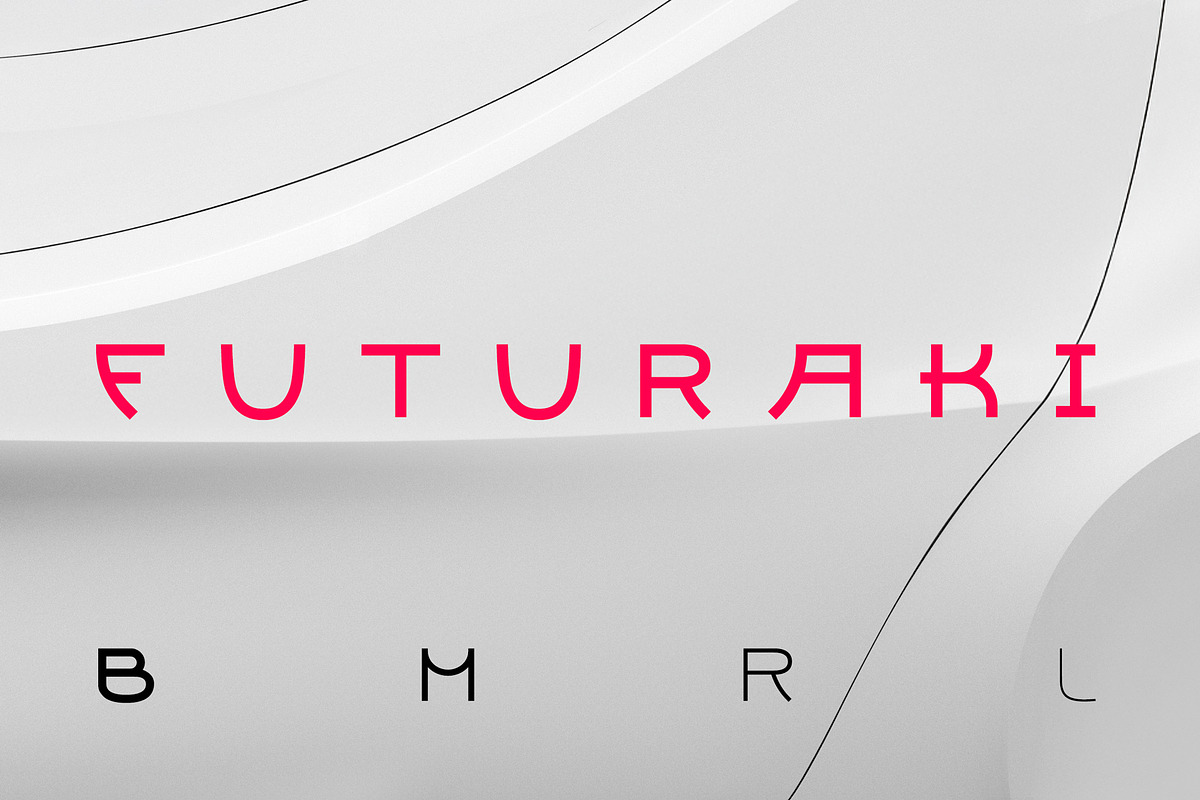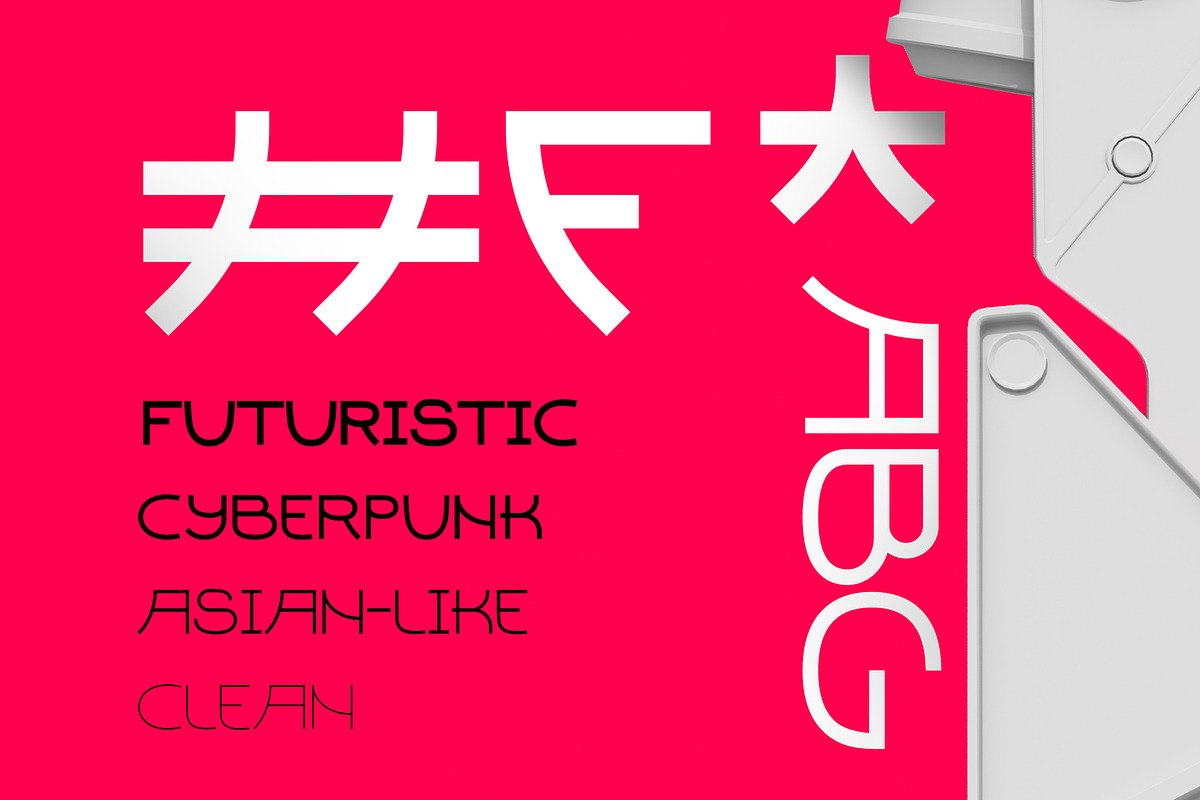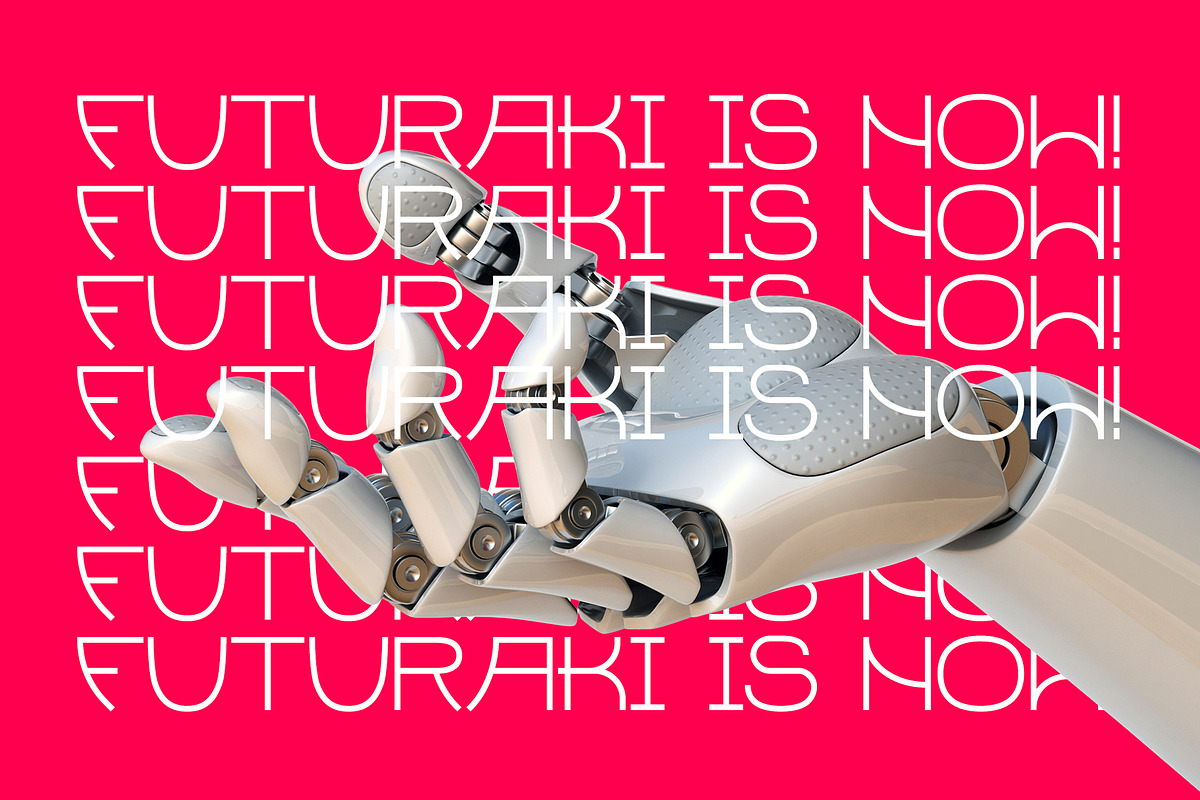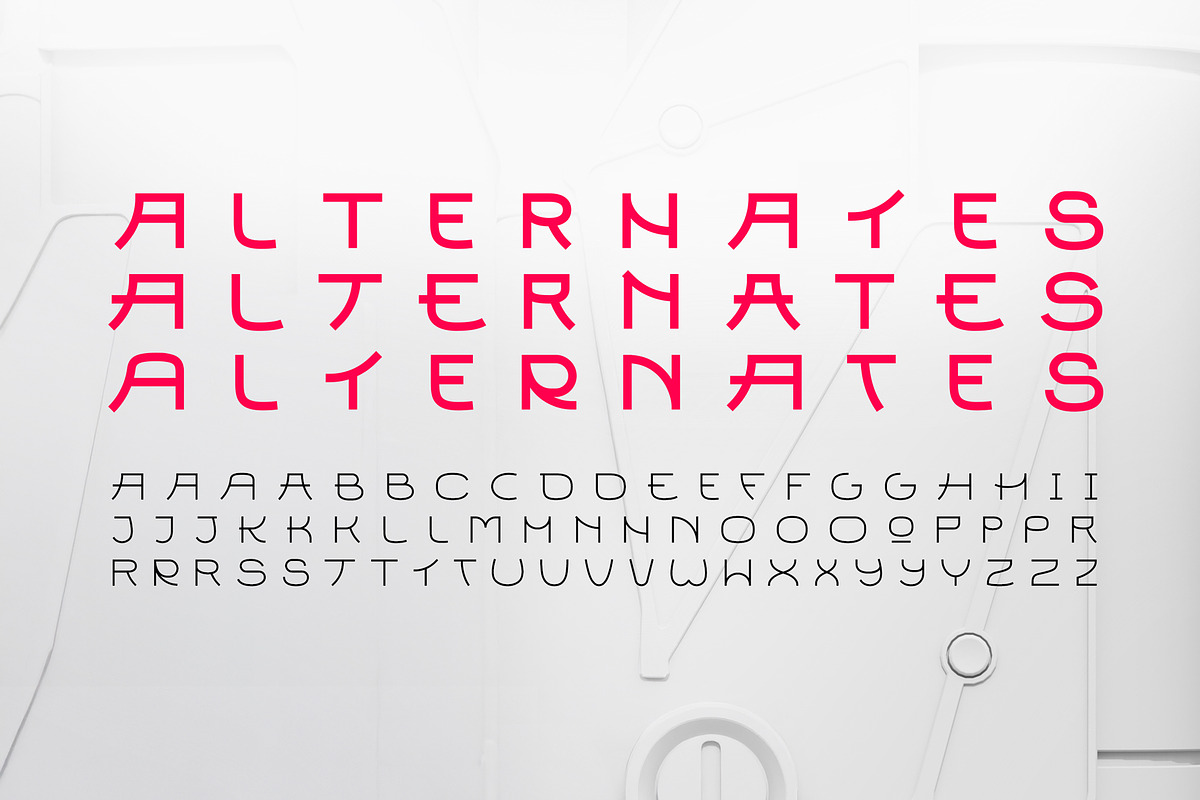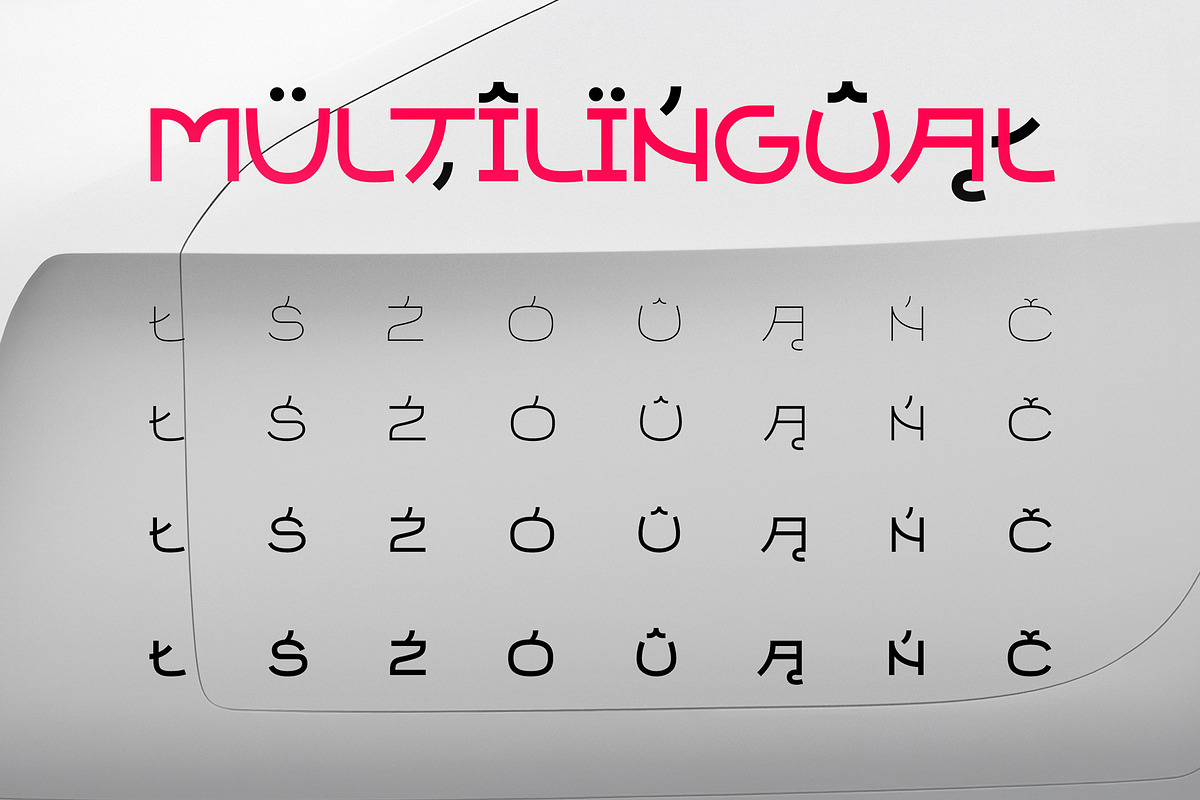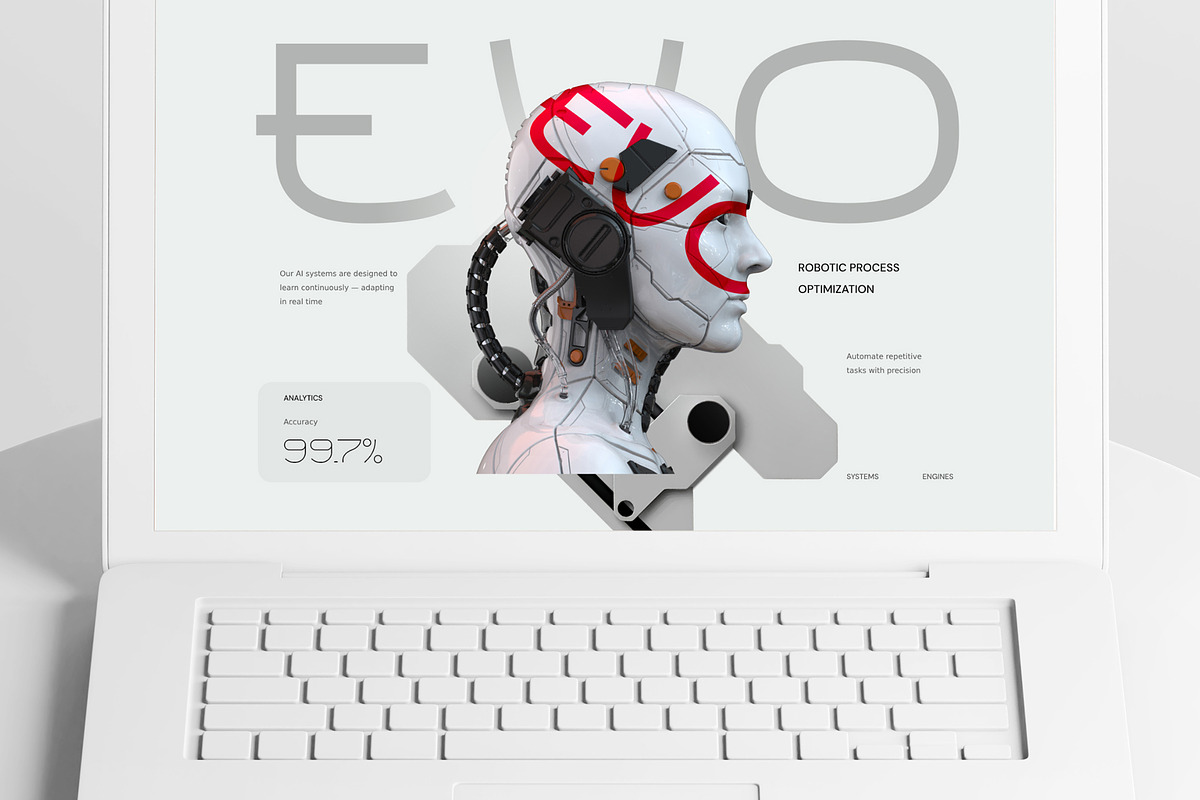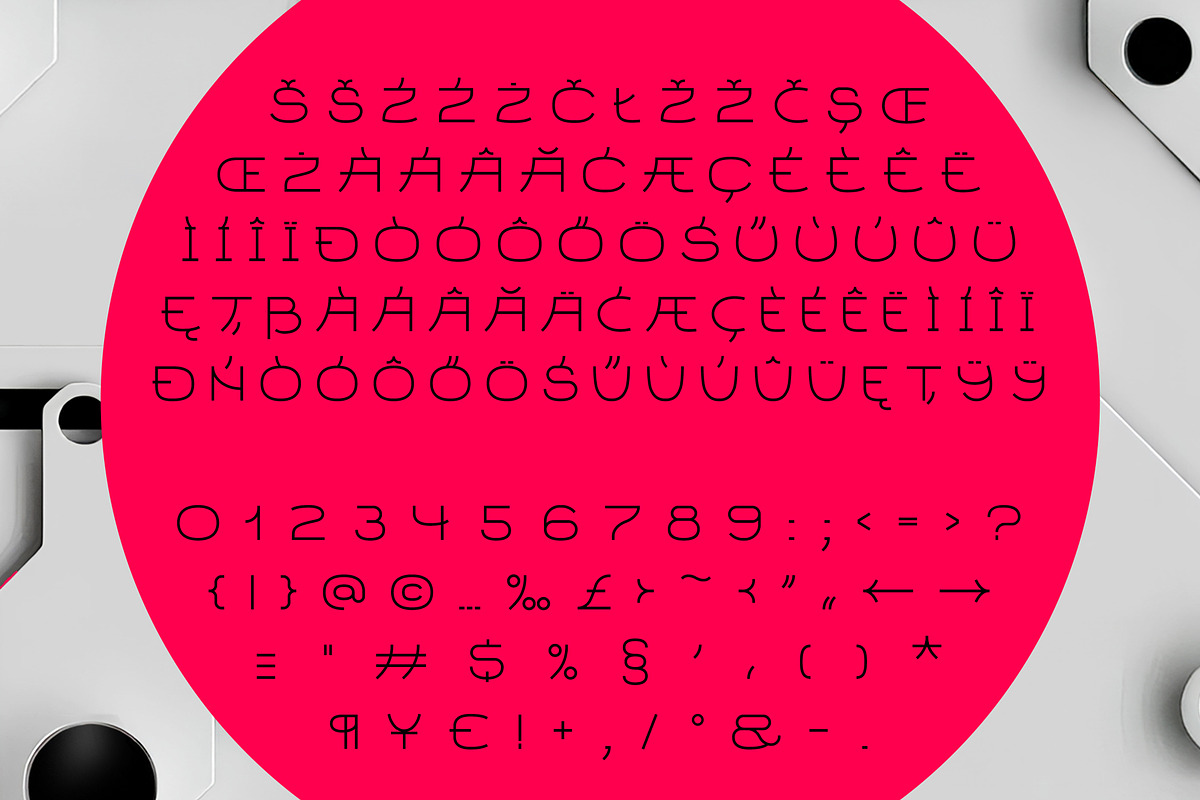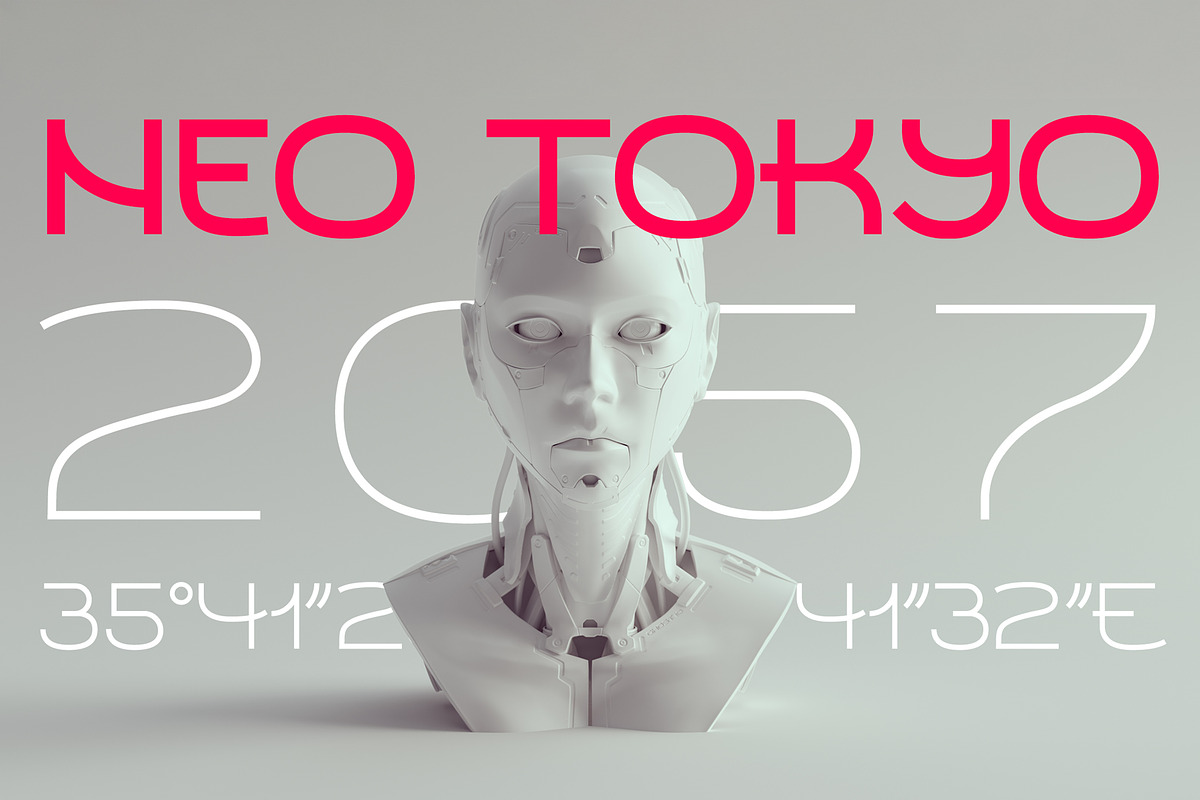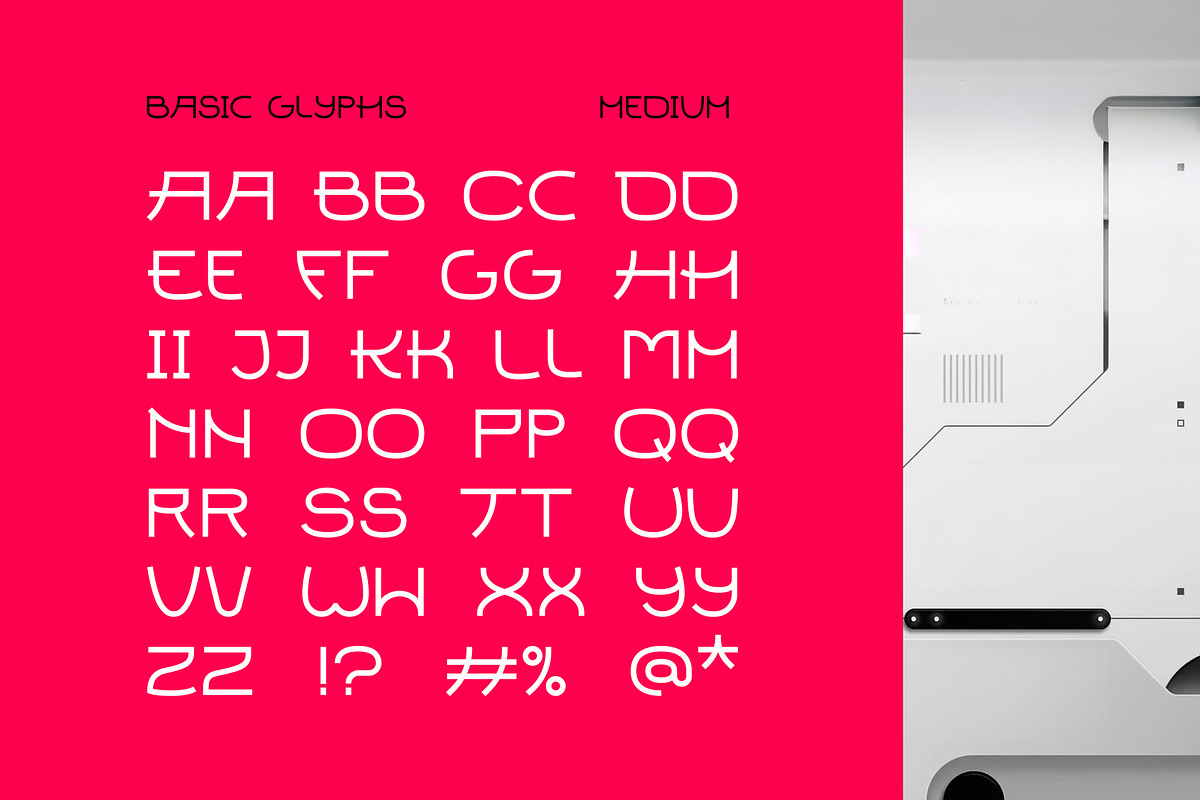
Futuraki Font Family
Futuraki is a unique font combining futuristic and cyberpunk vibe with japaneese katakana-like shapes. Fututaki uses a distinct japaneese shapes adapted to the letters of the latin alphabet. It gives a opportunity to stylize Your work without compromising on redability. Each letter has at least two styles you can easily use and mix using uppercase and lowercase glyphs. Uppercase letters have stronger stylization and more round shapes, while lowercase are more minimal and accessible. Most of letters also comes with additional stylistic variants. Futuraki is a multilingual font, usable in many languages. It offers 4 weights from light to bold. Futuraki is perfect for logotypes, headlines, decoratives, but it is also higly suitable for bocks of text